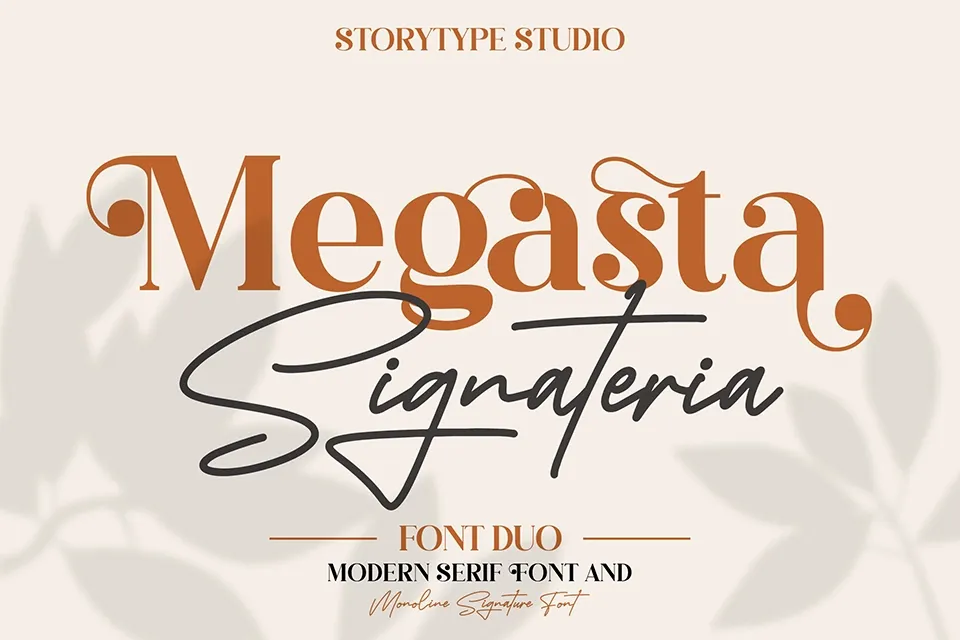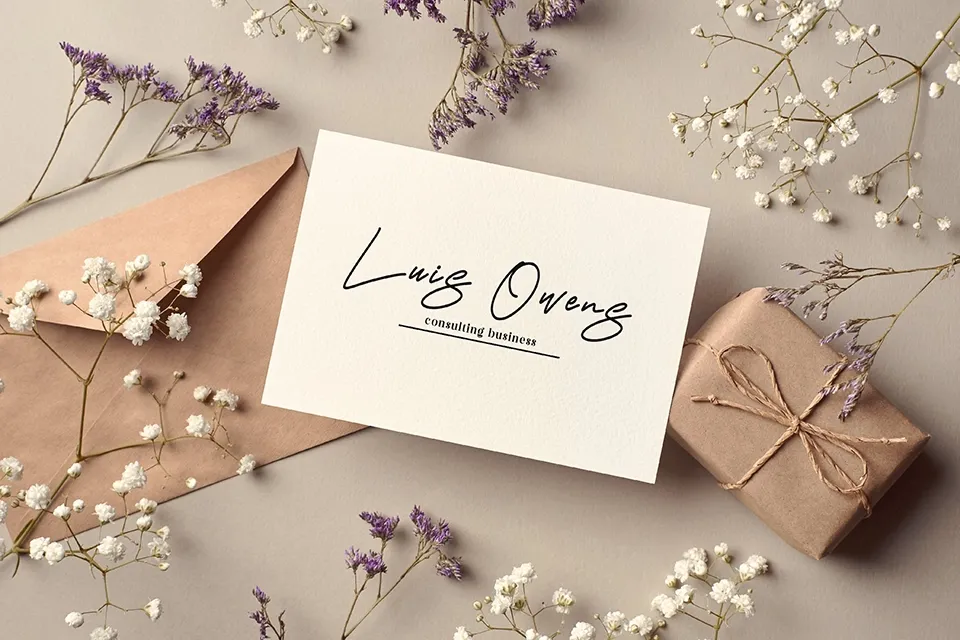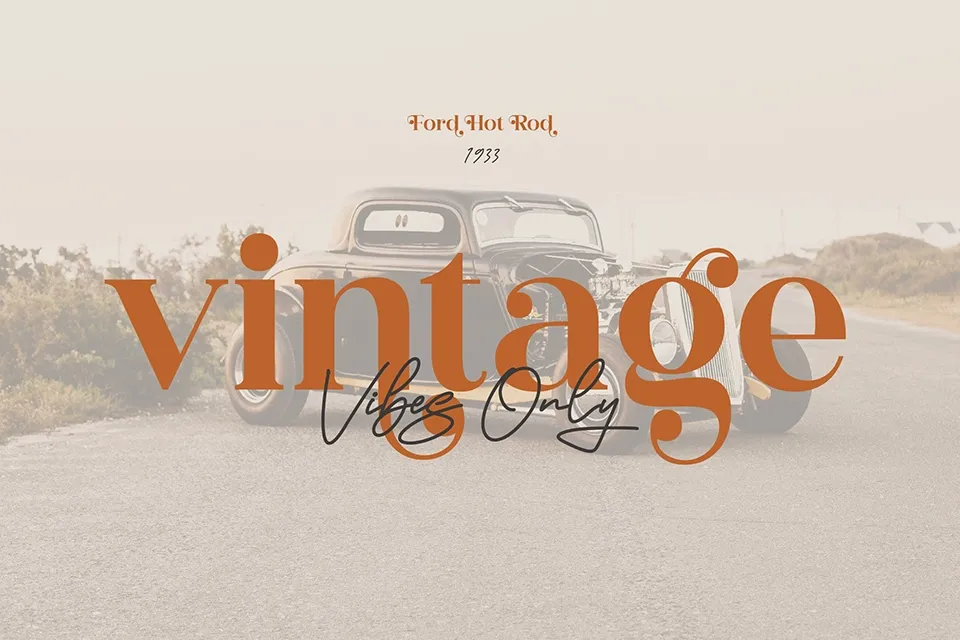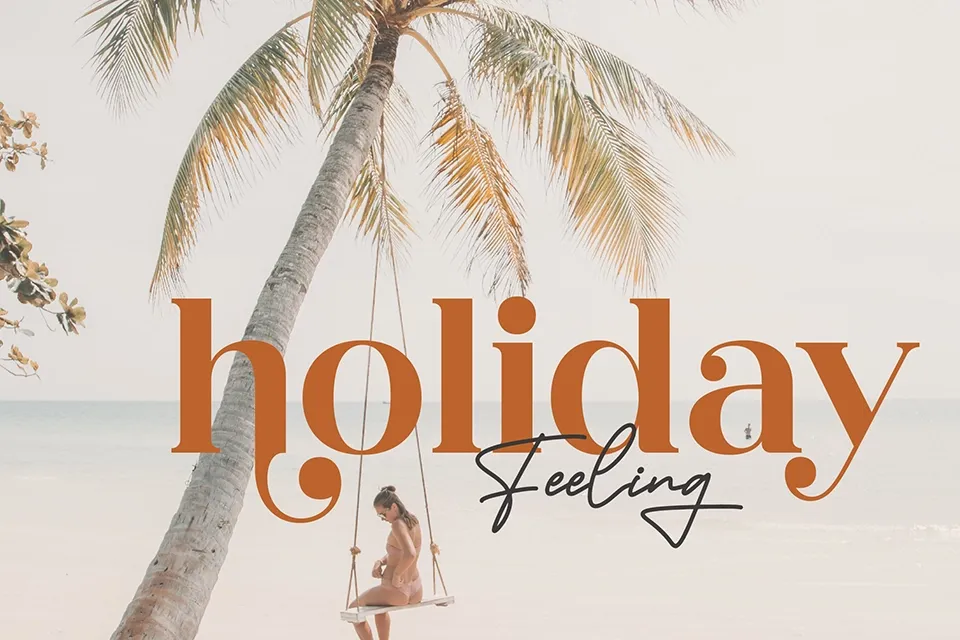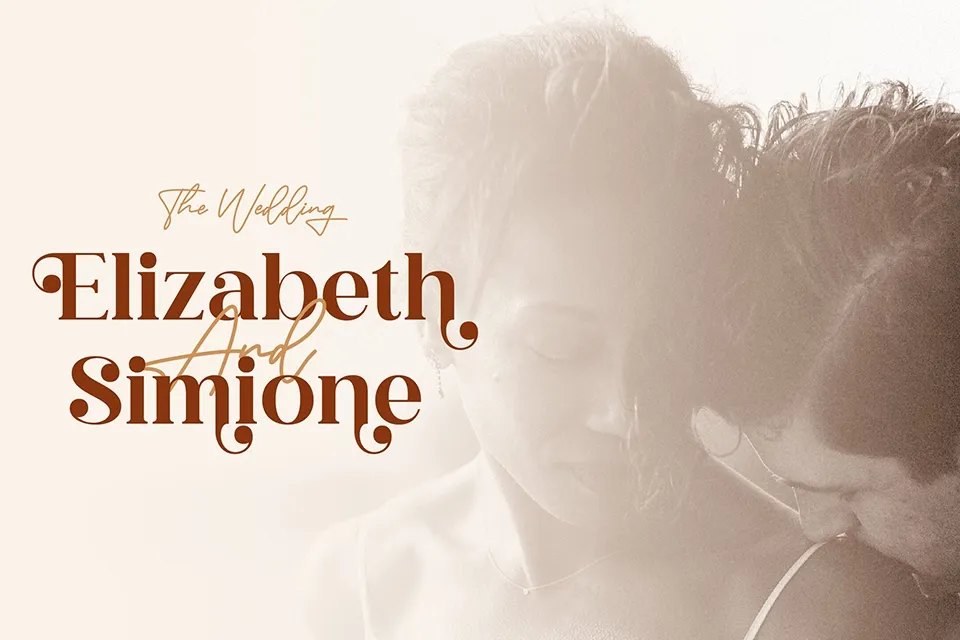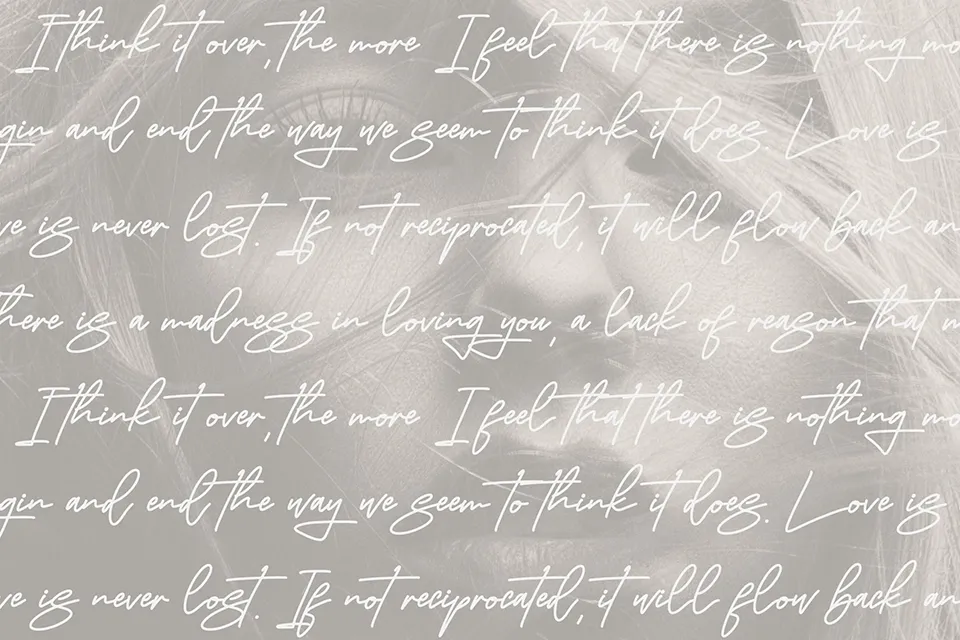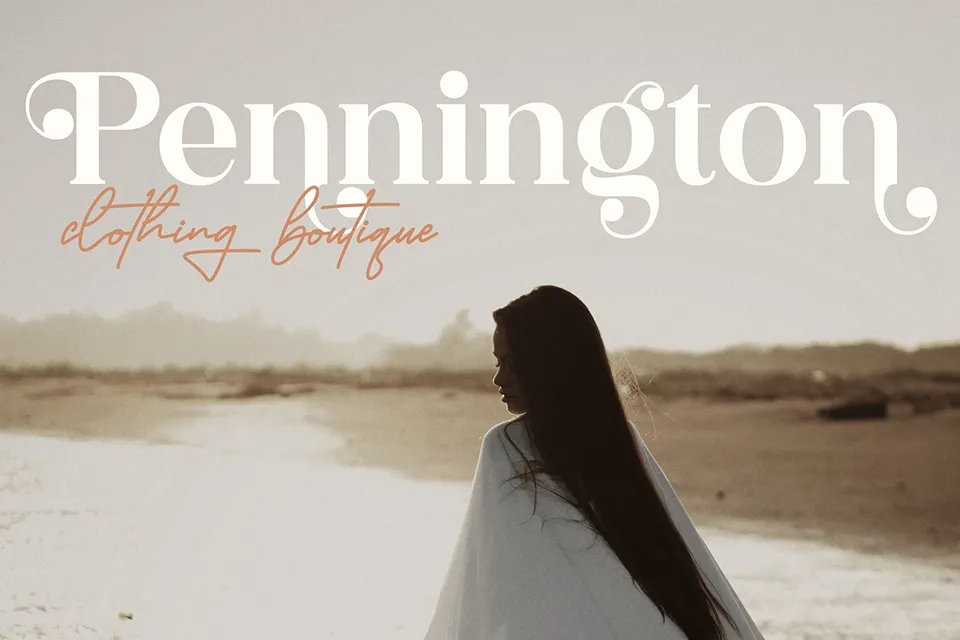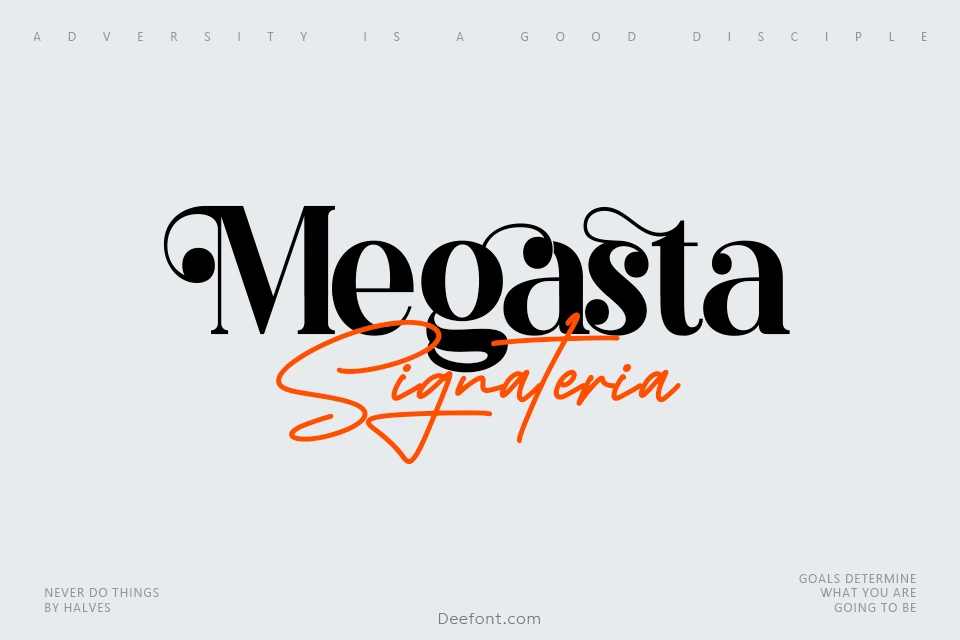
Megasta Signateria Font Duo
Megasta Signateria is a versatile font duo from Storytype Studio, featuring two complementary styles: Megasta, a modern serif font, and Signateria, a monoline signature script. Megasta presents a bold and elegant look with unique character shapes and stylish flourishes, offering a sophisticated feel. Signateria provides a contrasting fluid, handwritten style with smooth, consistent strokes, adding a personal and chic touch. This pairing creates a dynamic visual balance, blending structured elegance with flowing script. It’s well-suited for branding, logos, invitations, headlines, and other design projects seeking a blend of modern impact and personal flair.